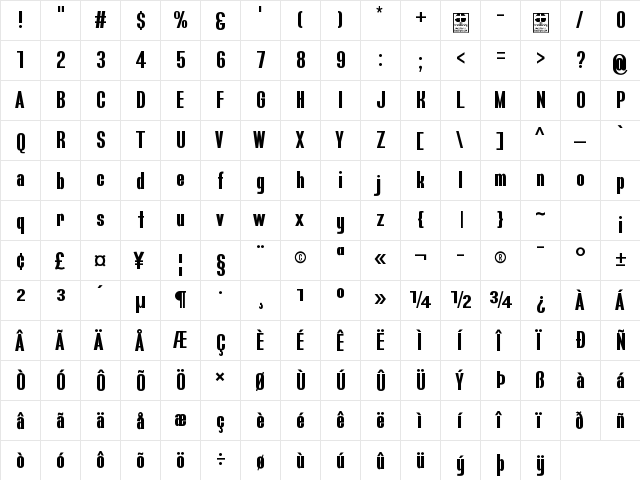
Bluefish Demo Bold
| Foundry | StudioTypo |
| Designer | Mehmet Abac |
Design Context for Bluefish Demo Typeface
Bluefish Demo is a composed and adaptable typeface that performs quietly and consistently across a wide range of design contexts. The heavy weight commands attention and anchors typographic hierarchies.